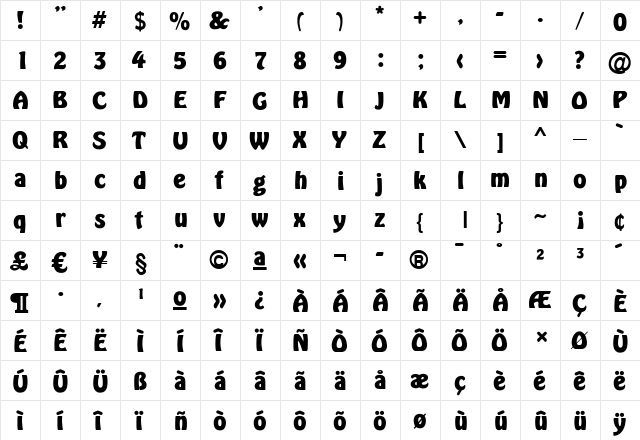
MaggieBecker Bold
Design Context for MaggieBecker Typeface
MaggieBecker is a composed and adaptable typeface that performs quietly and consistently across a wide range of design contexts. The heavy weight commands attention and anchors typographic hierarchies.